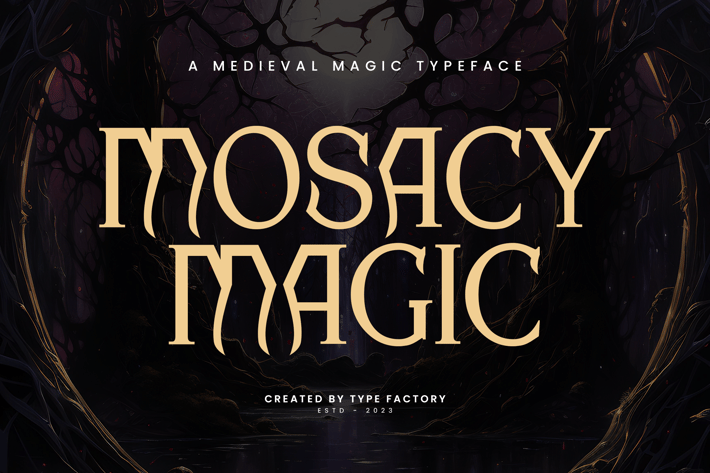
Mosacy Magic - Medieval Magic Typeface
Mosacy Magic is a captivating medieval typeface that weaves together the mysticism and grandeur of ancient times. With its intricate, ornate letterforms, this font is perfect for fantasy book covers, game designs, mystical branding, and anything that requires a touch of medieval magic. Mosacy Magic brings an enchanting and historic flair to your projects, invoking the charm of castles, legends, and magical realms. Whether used for print or digital, this typeface adds a timeless, mystical essence to any creative work.